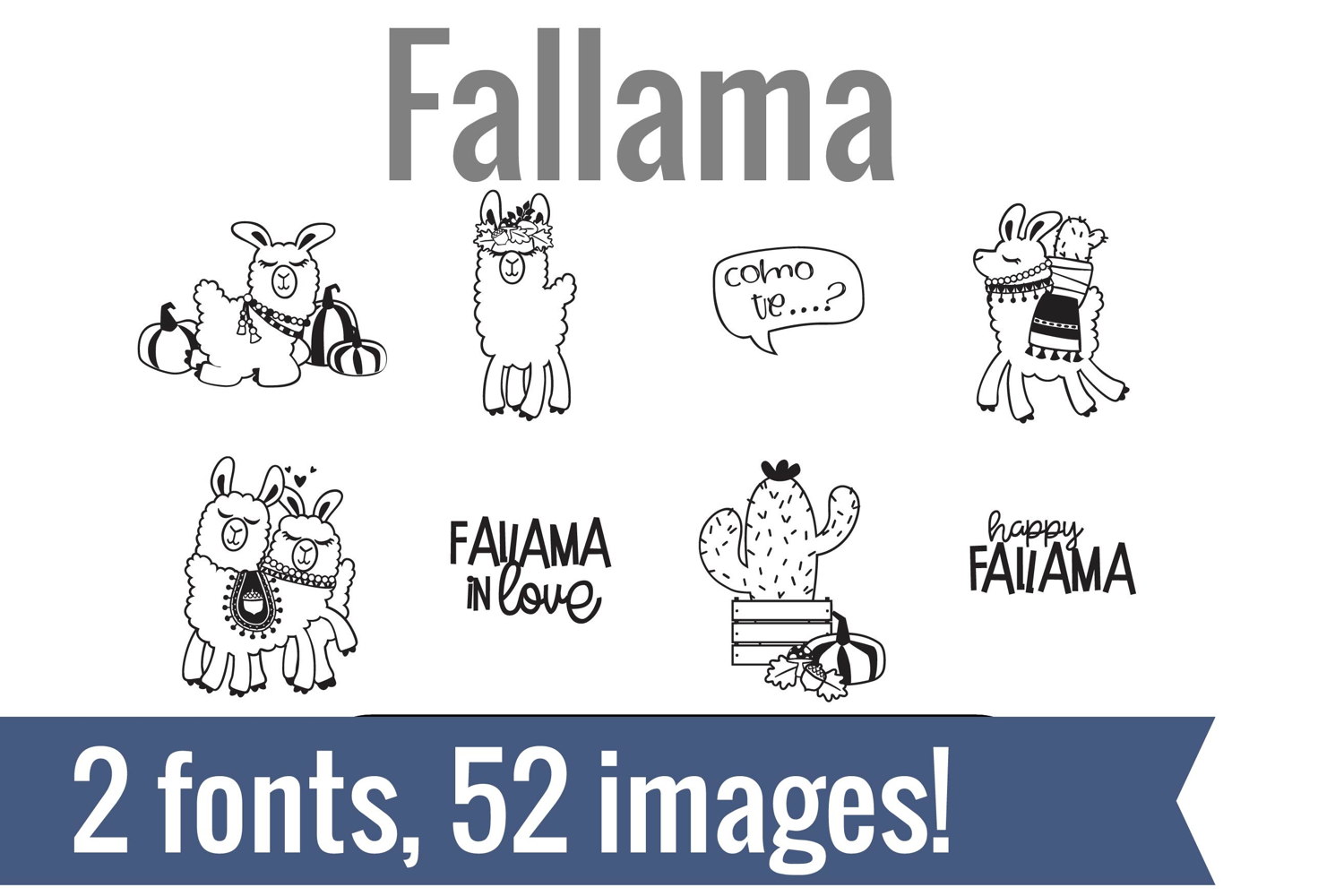
Fallama Dingbats
Unlock endless creativity with two perfectly coordinated fonts! There are two dingbat fonts in this bundle, both sporting the ever-popular llama with one set decked out for Halloween!
Tired of spending hours searching for the perfect icons and graphics? Our dingbat fonts put dozens of cohesive, scalable designs at your fingertips. Simply install the font and type a letter to produce a pre-made image. From charming seasonal icons for holiday cards to intricate frames for your invitations, these fonts let you create stunning designs for vinyl cutting, paper crafts, planners, and more.